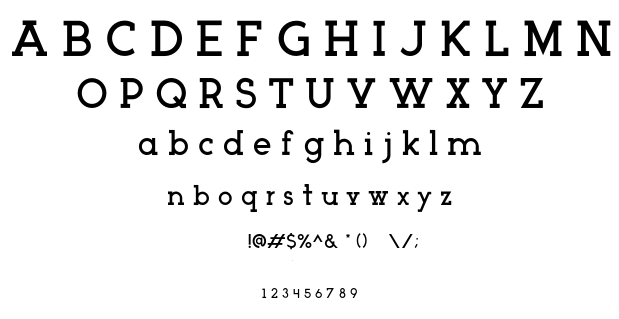
Arctic is a modern slab serif typeface. Arctic is based on my original font Ikaros with many changes to make arctic its own, with its own feel. It is built with strong lines witch show in its burly nothern feel. It is free for both personal and commercial projects.